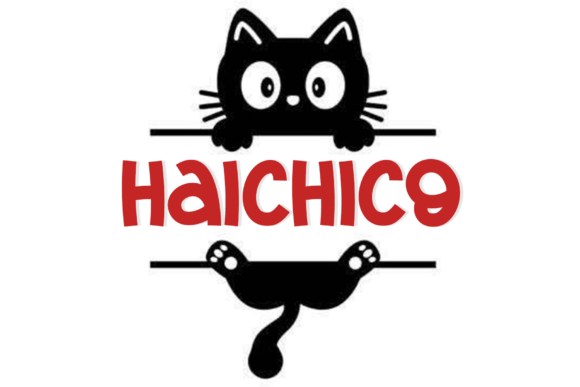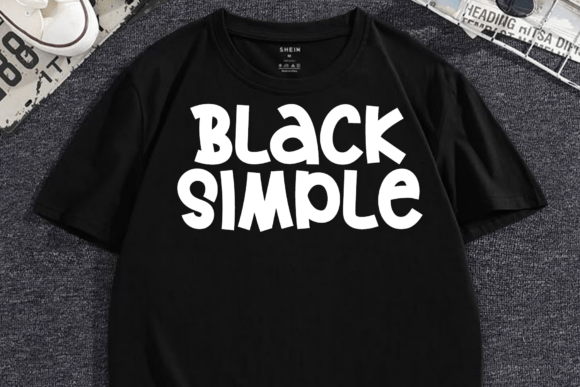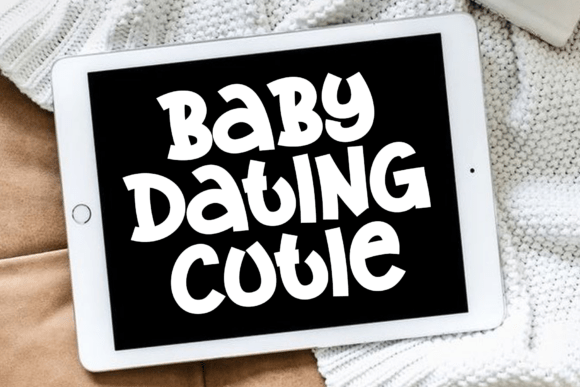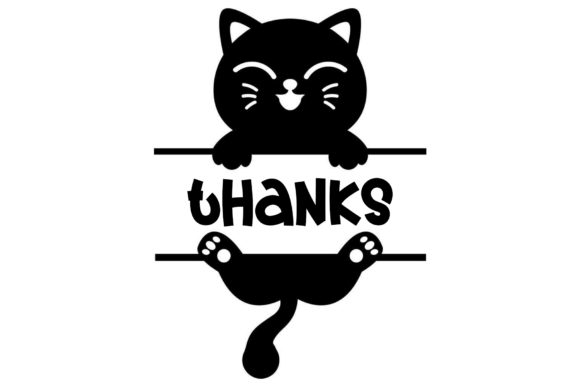
The Purr-fect Font for Your Next Design Project
Do you ever find yourself staring at a blank canvas, waiting for the perfect idea to strike? For designers, those moments can be the most exciting – and intimidating. But what if you had the right tool to spark your creativity and bring your vision to life? Enter the Cats Animal Font, a beautiful and timeless handwritten font that’s perfect for creating eye-catching logos, branding, and quotes.
This lovely font is more than just a pretty face – every letter has a unique and beautiful touch that will make your design come alive. Whether you’re a seasoned pro or just starting out, the Cats Animal Font is a valuable addition to any designer’s toolkit. With its versatility and charm, it’s the perfect choice for designers looking to add a personal touch to their work.
Cats Animal Font Key Features
- Unique Characteristics: Hand-drawn illustrations of cats with distinct personalities, making it perfect for designers looking for a fun and whimsical touch
- Character Set: Includes a wide range of cat illustrations, from various breeds to cartoon-style characters, totaling over 500 unique designs
- Customization Options: Allows for easy color customization, enabling designers to match the font with their brand’s color scheme
Cats Animal Font Review
I recently had the chance to work with the Cats Animal Font, and I must say it’s a mixed bag. Here’s my honest review:
- ✨ Unique and creative design: The Cats Animal Font has a quirky and playful feel to it, which can be a great addition to any project that needs a bit of whimsy.
- ✨ Wide range of characters: The font includes a variety of cat and animal characters, which can be useful for projects that require a lot of creative freedom.
- ✨ Easy to read: Despite the unique design, the font is still easy to read and understand, which is a must for any font.
- ⚠️ Limited language support: The font only supports a few languages, which can be a problem for projects that require text in multiple languages.
- ⚠️ Not suitable for formal projects: The font’s playful design may not be suitable for formal projects or those that require a more professional tone.
- ⚠️ May not be scalable: Some of the characters in the font may not scale well, which can be a problem for larger projects.
Overall, I think the Cats Animal Font is a fun and creative addition to any project. However, it’s not without its limitations, and it may not be suitable for all projects. If you’re looking for a unique and playful font, the Cats Animal Font may be a good choice, but be sure to consider its limitations before making a decision.
Tips for Getting the Most Out of Cats Animal Font
To get the most out of Cats Animal Font, try using it in creative and playful ways, such as:
- Creating a whimsical logo or branding design.
- Adding a touch of personality to your social media graphics.
- Using it to create a fun and engaging children’s book or educational resource.
Cats Animal Font is commonly used in:
- Children’s book and educational design.
- Social media graphics and advertising.
- Logo and branding